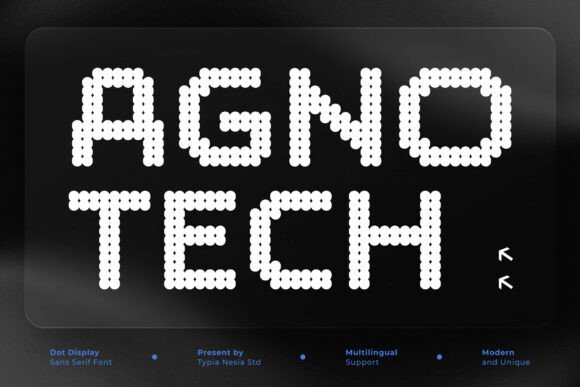
Agnotech Font: The Modern Futuristic Dot Pixel Sans Font for Retro-Futuristic Designs
In the realm of digital design, typography plays a pivotal role in conveying the essence and aesthetic of a brand or project. For those seeking a font that embodies a modern, futuristic look with a nod to retro 8-bit aesthetics, Agnotech emerges as a stellar choice. This article delves into the features, applications, and benefits of using Agnotech, a modern, dot-matrix style display font that is making waves in the design community.
Introducing Agnotech: A Modern Futuristic Dot Pixel Sans Font
Agnotech is not just another font; it’s a statement piece for your design projects. Its clean, striking pixel construction gives it a modern and futuristic appearance, making it an ideal choice for tech company logos, software interfaces, event posters, web, and app design. The font’s design subtly nods to retro 8-bit aesthetics, providing a perfect blend of vintage screen feel and contemporary clarity.
Versatile Applications of Agnotech
Agnotech’s versatility is one of its standout features. Its applications span across various design needs:
- Tech Company Logos: Agnotech’s futuristic look makes it perfect for tech companies looking to establish a modern and innovative brand image.
- Software Interfaces: The font’s clarity and digital appearance make it suitable for software interfaces, enhancing user experience with its clean and readable style.
- Event Posters: For events with a tech or gaming theme, Agnotech can add a touch of modernity and appeal.
- Web and App Design: Agnotech can elevate web and app designs, especially those related to tech, gaming, or sci-fi, with its unique aesthetic.
Extensive Multilingual and Punctuation Support
In a globalized world, design often needs to cater to diverse audiences. Agnotech addresses this need with its extensive multilingual and punctuation support. This feature ensures that the font can be used in a wide range of projects without worrying about language limitations, making it a practical choice for international brands and projects.
The Benefits of Using Agnotech
Agnotech offers several benefits to designers and brands:
- Conveys Innovation: The font’s modern and futuristic design effectively conveys a sense of innovation and forward-thinking.
- Retro-Futuristic Appeal: It adds a vintage screen feel to designs, providing a unique aesthetic that sets brands apart.
- Clear and Contemporary: Agnotech maintains clarity and legibility, ensuring that messages are communicated effectively.
Agnotech stands out as a versatile and impactful font for designers and brands aiming to infuse their projects with a modern, futuristic aesthetic and a nod to retro 8-bit styles. Its wide range of applications, extensive language support, and the unique blend of vintage and contemporary design elements make it an excellent choice for tech, gaming, and sci-fi related projects. By incorporating Agnotech into their designs, creators can effectively convey innovation and a forward-thinking approach, ensuring their projects stand out in a crowded digital landscape.